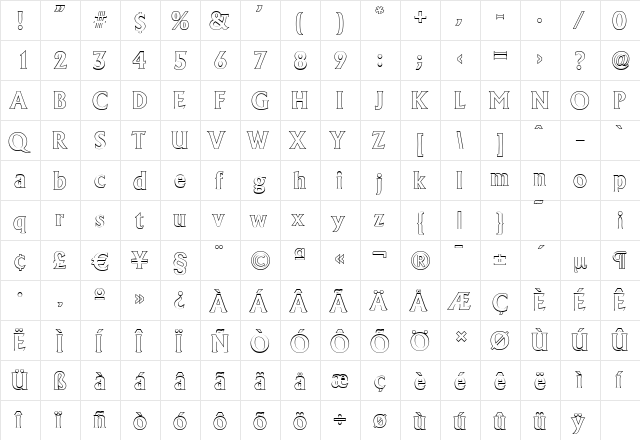
AdelonOutline Bold
Design Context for AdelonOutline Typeface
AdelonOutline is built around its visual character rather than neutral utility — its distinctive forms are designed to make an impression at display sizes. Its bold stroke weight gives it real presence on the page.
Font Pairing: Pair with a clean neutral sans-serif for body copy to let AdelonOutline's character lead without overwhelming the composition.
Pro Tip: Treat AdelonOutline as the centrepiece of your typographic hierarchy. One strong heading set in a decorative face can carry an entire layout.